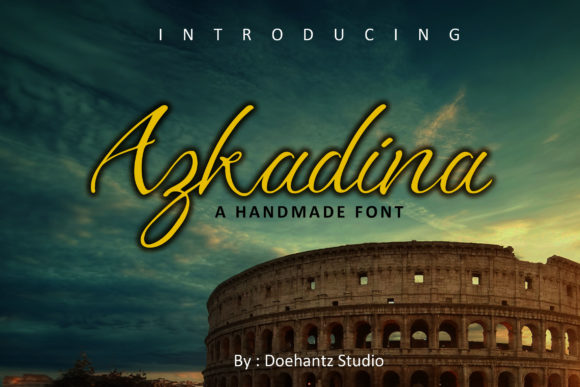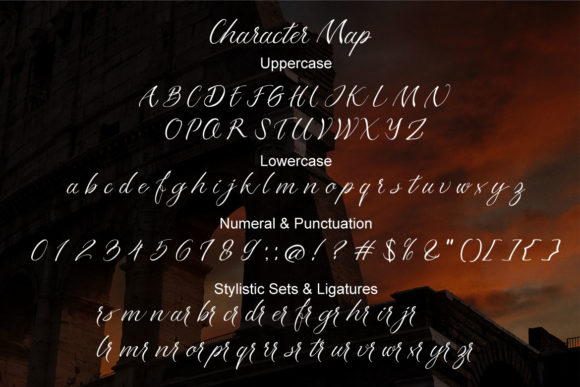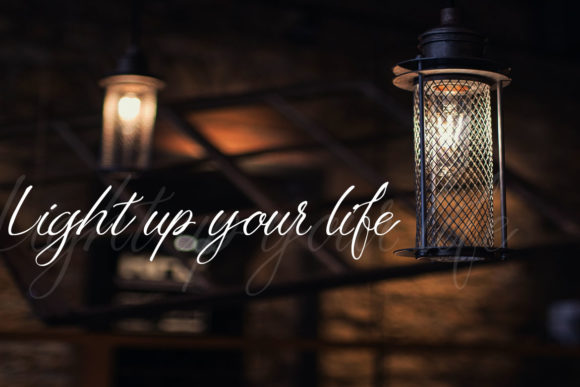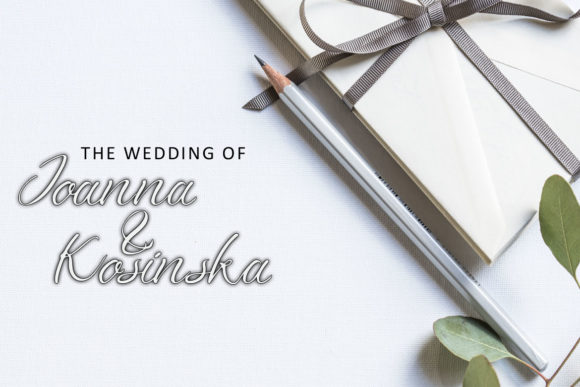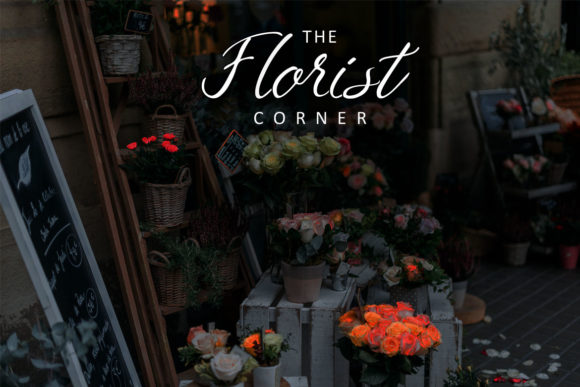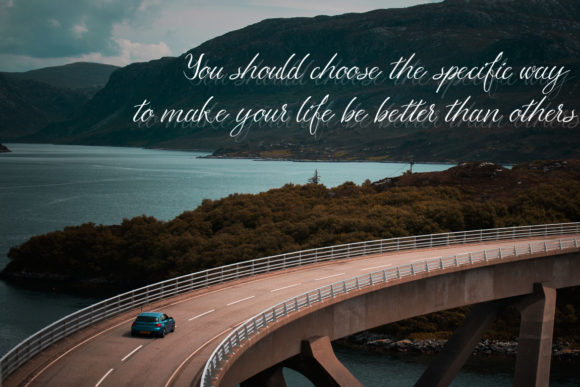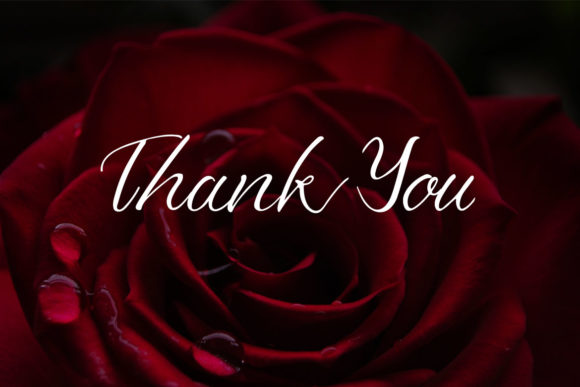
Azkadina Font
About Azkadina Font
Azkadina is an elegant script font with a cool vibe. Get inspired by its organic lettering, and turn any design project into an eye catcher!